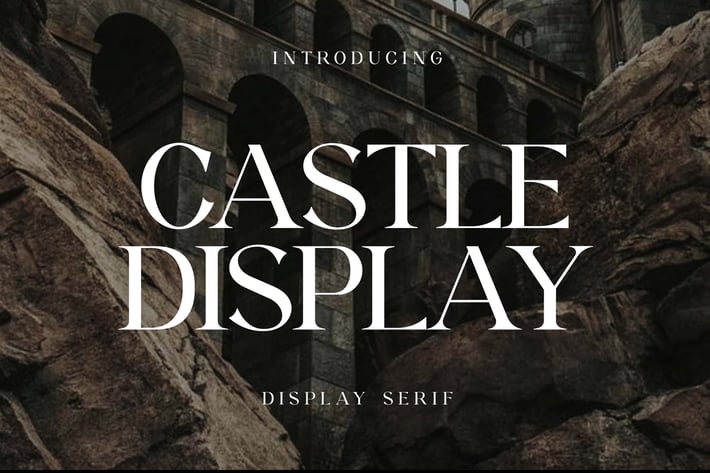
Introducing our new product the name is Castle Display Serif Font. Castle Display Serif Font that feels beautiful classy, elegant, and modern. This font is perfectly suited for a wide variety of projects, such as signature, stationery, logo, wedding, typography quotes, magazine or book covers, website headers, clothing, branding, packaging design, and more. Also, fashion-related branding or editorial design displays both masculine and feminine qualities.